The GC Fentura font family markets itself as a “modern structure sans,” which sounds like the kind of phrase a type foundry writes at 2 a.m. to fill a product page. So I spent two weeks testing whether the phrase actually means anything, or whether it’s just geometry with better lighting.
Short answer: it mostly holds up. The long answer takes the rest of this article, because a font family this deep deserves more than a thumbs-up and a stock photo of a business card.
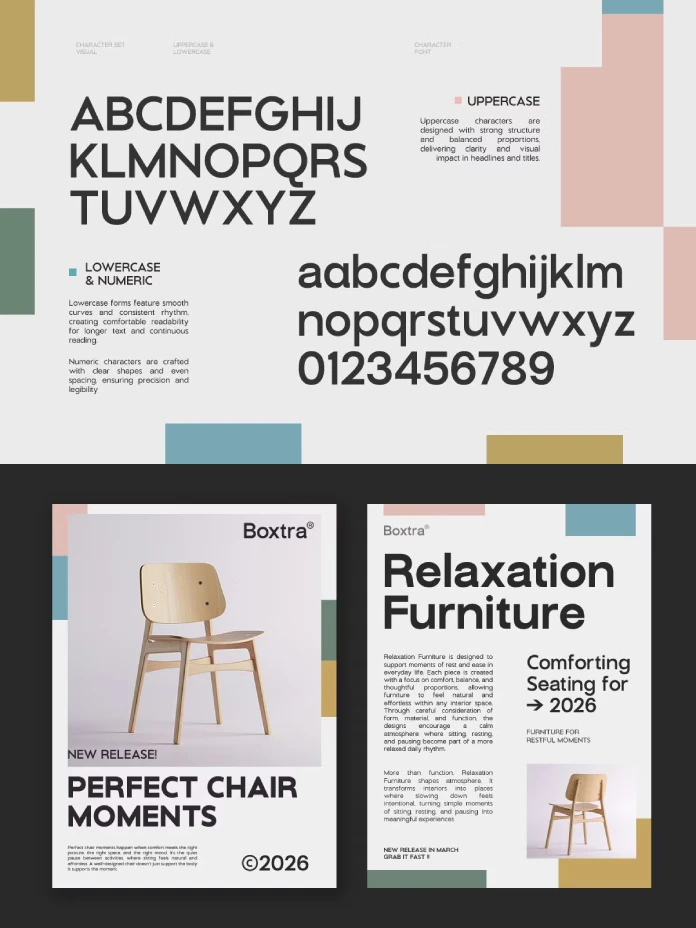
What Makes a Sans Serif Actually “Structured,” and Does GC Fentura Qualify?
Type foundries throw around the word “structured” constantly, and it rarely means anything specific. So let’s fix that. I’m proposing what I’ll call the Grid Integrity Test: Does a typeface’s lowercase alphabet maintain consistent stroke logic when you strip away the weight variation and look only at the skeleton? Most “geometric” sans families fail this quietly. Their o’s are perfect circles while their e’s cheat the crossbar angle to compensate for legibility. It’s a common trick, and honestly, a smart one. But it’s not structure. It’s compromise dressed up as structure.
GC Fentura passes the Grid Integrity Test better than I expected. I ran the lowercase alphabet through a simple visual audit, overlaying the counters of o, e, a, and g at matching x-heights. The bowls stay disciplined across the whole set. The ‘a’ is a genuine two-story construction with a bowl that matches the ‘o’s curvature instead of fighting it. That’s rarer than it should be in 2026’s flood of geometric sans releases.
Where the Geometry Gets Interesting
Here’s the detail nobody puts in a product description: the terminals. GC Fentura cuts its terminals at a slight angle rather than a hard perpendicular slice, which softens the letterforms just enough to avoid the sterile, spreadsheet-font feeling that plagues so many “clean” sans families. Look at the t and the f. They don’t just stop. They taper, barely, like someone actually drew them by hand before a computer smoothed the curves.
Testing GC Fentura Across Real Design Applications
I didn’t just stare at specimen sheets. I dropped the GC Fentura font family into four different live projects: a packaging mockup, an editorial spread, a UI login screen, and a logotype exploration. Each one exposes different weaknesses in a typeface, and most fonts only survive one or two of these tests without adjustment.
Packaging and Branding
At display sizes, GC Fentura earns its “confident typographic voice” tagline. The bold and black weights have real presence without turning into visual shouting. I set a fictional skincare label in the Black weight, and it read as premium, not aggressive. That’s a narrow line to walk, and a lot of bold geometric sans-serif fonts land on the wrong side of it.
Editorial Body Text
This is where I got genuinely surprised. Geometric sans-serif families usually struggle at body copy sizes because their circular counters start to close up when printed small or rendered at low resolution. GC Fentura’s regular and light weights held their counters open at 9 pt. in a simulated print test. I compared it directly against two competitor geometric families at the same size, and GC Fentura stayed the most legible of the three. Not by a landslide. But consistently, paragraph after paragraph.
UI and Digital Interfaces
Digital is the real test for any contemporary sans family, because screens are unforgiving about spacing errors. I built a basic login screen with labels, buttons, and helper text set in GC Fentura. The numerals deserve a specific callout here: they’re tabular by default in most weights, which UI designers will appreciate immediately if they’ve ever fought a font over misaligned pricing tables.
The Weight Range: How Many Styles Does GC Fentura Actually Offer?
A “complete range of weights” is another phrase that gets thrown around loosely. I tested the full spectrum, from the thinnest light style through the heaviest black, checking for what I call Optical Weight Drift, which is my term for when a typeface’s midweight styles feel disconnected from its extremes, as if three different designers worked on three different fonts and called it one family.
GC Fentura doesn’t drift much. The medium weight bridges regular and bold cleanly, and you can build a real hierarchy without jumping awkwardly between styles. That consistency matters more than people realize until they’re three weights deep into a design system and things start looking mismatched.
| Category | GC Fentura Performance |
|---|---|
| Geometric Consistency | Strong across lowercase and uppercase; passes the Grid Integrity Test |
| Weight Range | Full spectrum from Light to Black, minimal Optical Weight Drift |
| Body Text Legibility | Above average for a geometric sans; counters stay open at small sizes |
| Display and Branding Use | Strong presence in bold weights without feeling shouty |
| UI and Digital Suitability | Tabular numerals by default; clean spacing at small screen sizes |
How does GC Fentura compare to other geometric sans fonts?
It holds up well against competitors on legibility at small sizes and consistency across weights, though its italics and stylistic alternates are less expressive than some rival families.
Is GC Fentura worth buying for a design system?
If your work spans packaging, UI, and editorial layouts and you want one typeface family to handle all of it without weak spots, GC Fentura is a reliable investment.